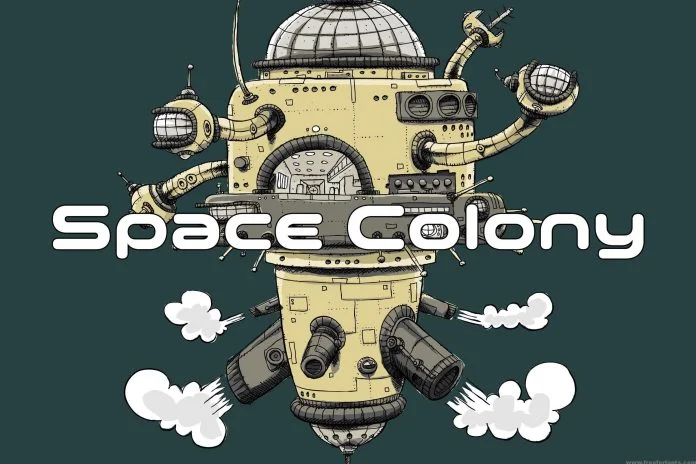
Space Colony Sans Serif Fonts is perfect for science fiction interfaces, space exploration websites, futuristic app design, aerospace company branding, sci-fi video game UI, space technology presentations, planetarium displays, astronaut training materials, cosmic research publications, and interstellar mission graphics.
Space Colony Sans Serif Fonts is exciting because it embodies the vision of humanity's future among the stars through clean, technological letterforms that suggest advanced civilization and space-age innovation. This forward-thinking typeface combines utilitarian functionality with futuristic aesthetics, making it perfect for projects that need to communicate cutting-edge technology and interstellar possibilities.
The Space Colony Sans Serif Fonts family includes multiple weights from Ultra Light to Heavy, with corresponding oblique versions and extended character variations. The font features geometric precision, technical styling, and space-age character details that create a comprehensive typographic system designed for advanced technological applications and futuristic interface design.
Space Colony Sans Serif Fonts Free Download provides designers with access to premium futuristic typography that brings space-age sophistication to contemporary design projects. This expertly engineered typeface has been crafted to reflect the technological advancement and clean aesthetics of imagined space colonies, delivering exceptional performance in digital interfaces and high-tech applications. The font's utilitarian character and precise construction ensure optimal readability in mission-critical environments.
The technological sophistication of Space Colony Sans Serif Fonts makes it an essential tool for aerospace companies, technology startups, and scientific institutions that need to communicate advanced capabilities and future-oriented thinking. The font's clean, functional character helps establish credibility in technical fields while suggesting innovation and progress that appeals to forward-thinking audiences.
Tech companies, space agencies, and entertainment studios consistently choose Space Colony Sans Serif Fonts for its ability to convey technological advancement and space exploration themes through typography. The font excels in applications where establishing futuristic credibility and scientific authority are crucial to success, making it particularly effective for space technology, research institutions, and science education materials.
This font's comprehensive Unicode support includes technical letterforms, scientific numerals, mathematical symbols, and specialized characters necessary for space technology and scientific applications. The precise engineering and consistent styling ensure reliable performance across all interstellar and technological design projects requiring Space Colony Sans Serif Fonts Free Download functionality.